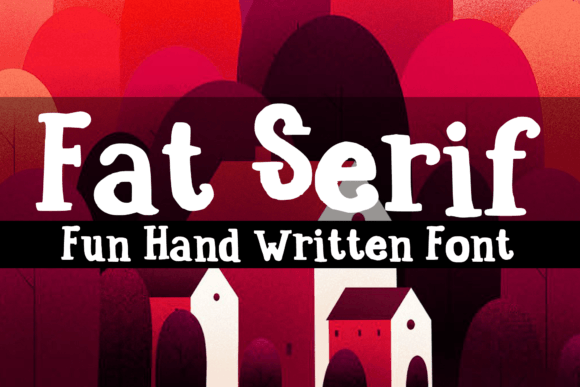
**Introducing Fat Serif: The Font That Will Make Your Blog Posts Pop!**
Are you tired of your blog posts looking dull and uninspired? Do you want to capture your readers' attention and keep them engaged from start to finish? Then you need Fat Serif, the best font for a blog post that will transform your writing into a visual masterpiece.
Fat Serif is a playful and charming handwritten display font that will add a touch of whimsy and personality to your blog posts. Its irregular baseline creates a dynamic and eye-catching effect that will make your words jump off the page.
Whether you're writing about fashion, travel, food, or anything in between, Fat Serif is the perfect font to add a touch of flair and style to your writing. It's also incredibly versatile, so you can use it for anything from headers and subheaders to body text and callouts.
"Fat Serif is the perfect font for my blog posts. It's fun, quirky, and helps me to connect with my readers on a personal level." - Sarah, fashion blogger
"I love using Fat Serif for my blog's headers and subheaders. It instantly adds a touch of sophistication and makes my posts look more professional." - John, travel blogger
"Fat Serif is the best font for a blog post that I've ever used. It's so easy to read and helps my posts to stand out from the crowd." - Mary, food blogger
**Here are just a few of the benefits of using Fat Serif:**
* **It's fun and quirky:** Fat Serif's irregular baseline and playful characters will add a touch of whimsy and personality to your blog posts.
* **It's incredibly versatile:** Fat Serif can be used for anything from headers and subheaders to body text and callouts.
* **It's easy to read:** Fat Serif's large, clear characters are easy to read on any device.
* **It helps you to stand out from the crowd:** Fat Serif is a unique and eye-catching font that will help your blog posts to stand out from the competition.